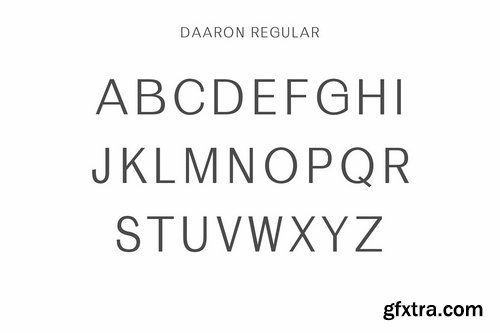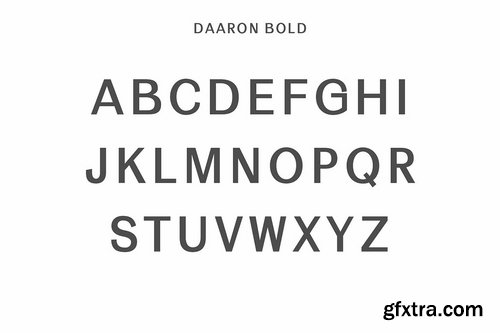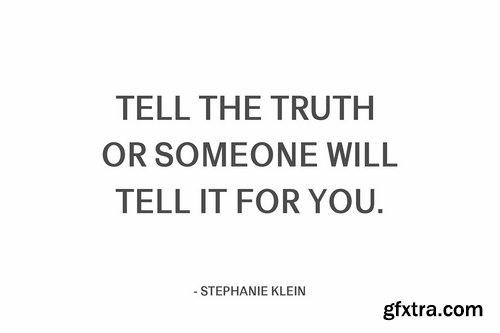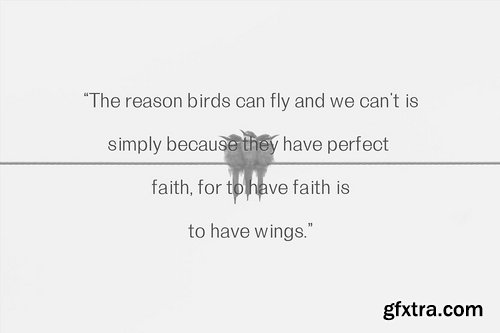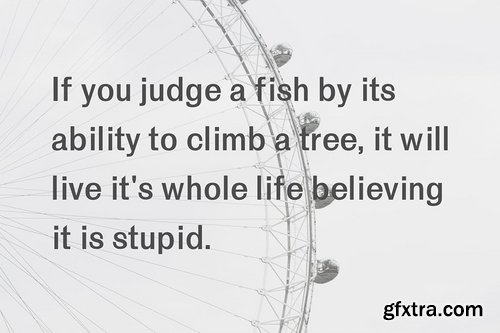
Daaron is a modern and minimalist rounded sans serif typeface. It comes with 3 weights: Regular, Round and Bold versions, which contains complete basic glyphs with multilingual support. Linnett will be perfect for packaging, presentations, logo, headlines, lettering, posters, branding, quotes, titles, magazines headings, web layouts, advertising, invitations, packaging design, books, and nearly any creative design.